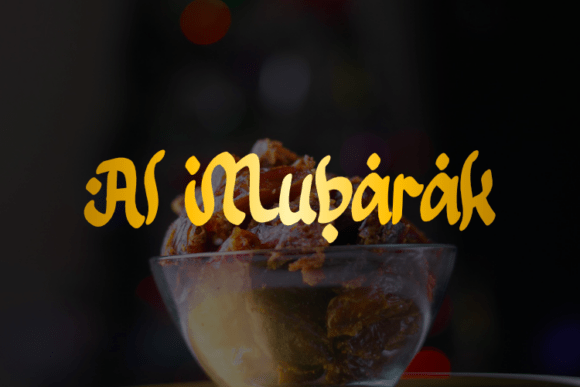
Unveiling Al Mubarak: The Versatile Font That Elevates Your Designs
A Personal Review of Al Mubarak
- ✨ **Clean lines and striking aesthetics**: Al Mubarak’s modern design makes it perfect for a wide range of projects, from clothing and t-shirts to brochures and posters.
While Al Mubarak is an excellent font, there are a few minor things to keep in mind:
- 🤔 **Limited Cyrillic support**: Al Mubarak’s Cyrillic character set is limited, so it’s best to use it for projects that don’t require extensive Cyrillic text.
- ⚠️ **Glyph complexity**: Some glyphs, such as the ligatures, can be a bit finicky. However, with a little practice, you’ll get the hang of using them effectively.
The Backstory of Al Mubarak
Al Mubarak was designed by a team of typographers who aimed to create a font that would be both precise and aesthetically pleasing. Inspired by modern Arabic calligraphy, Al Mubarak combines clean lines and striking aesthetics to create a unique and versatile font.
| What is Al Mubarak? | Al Mubarak is a versatile font designed for a wide range of projects, from clothing and t-shirts to brochures and posters. |